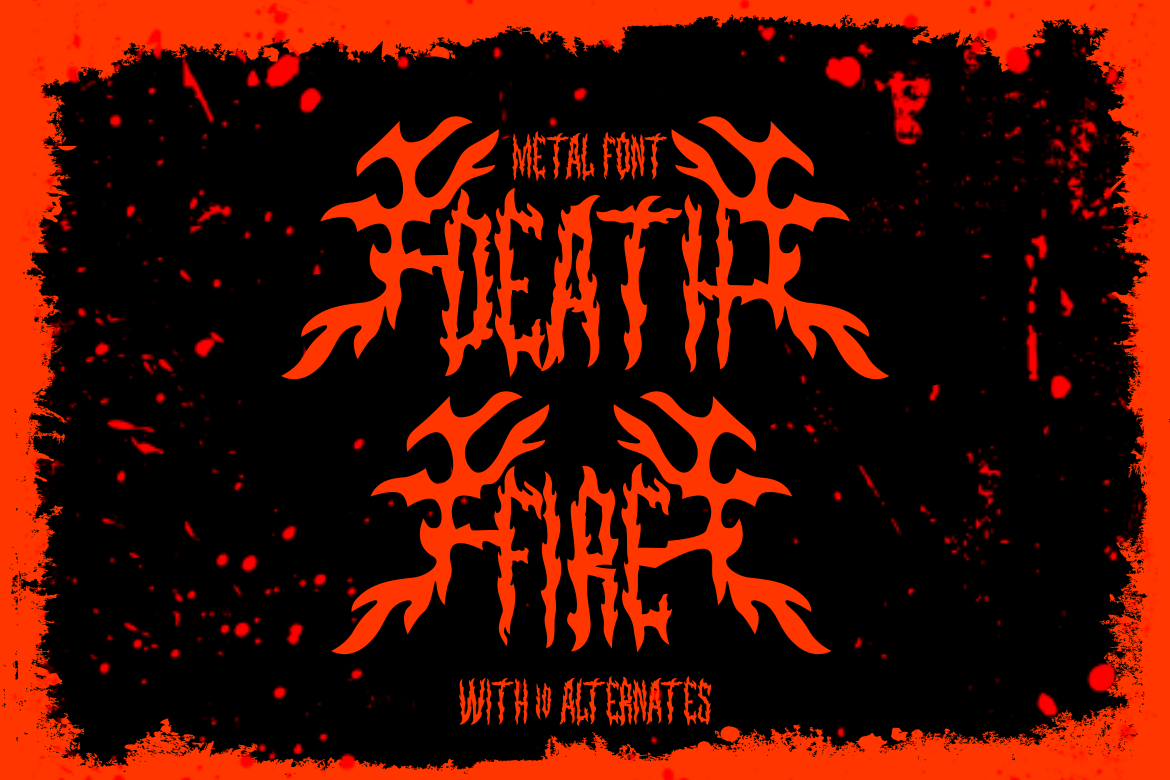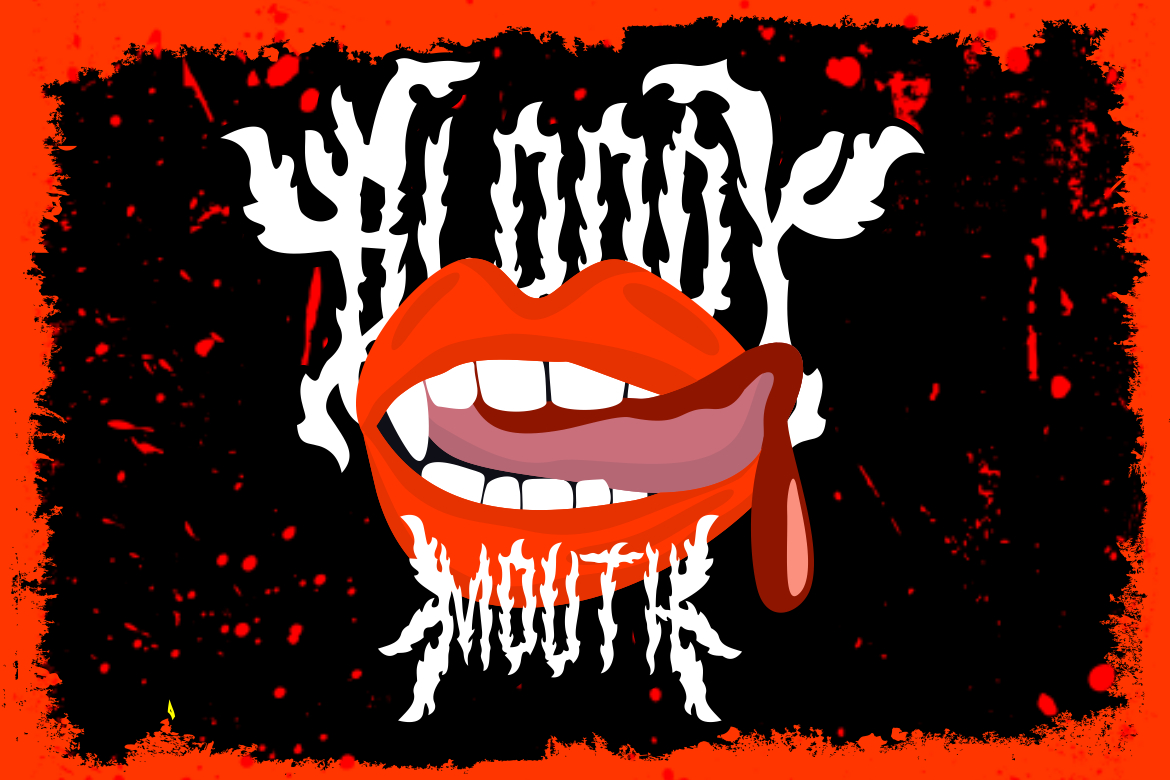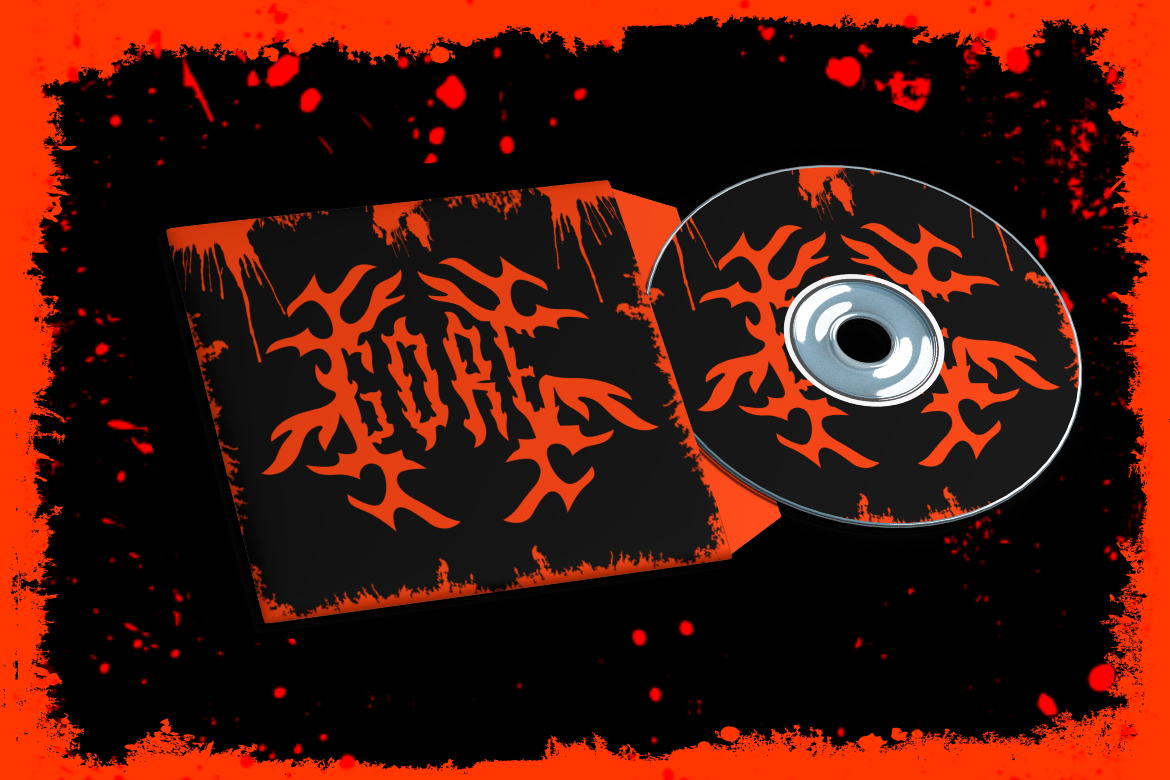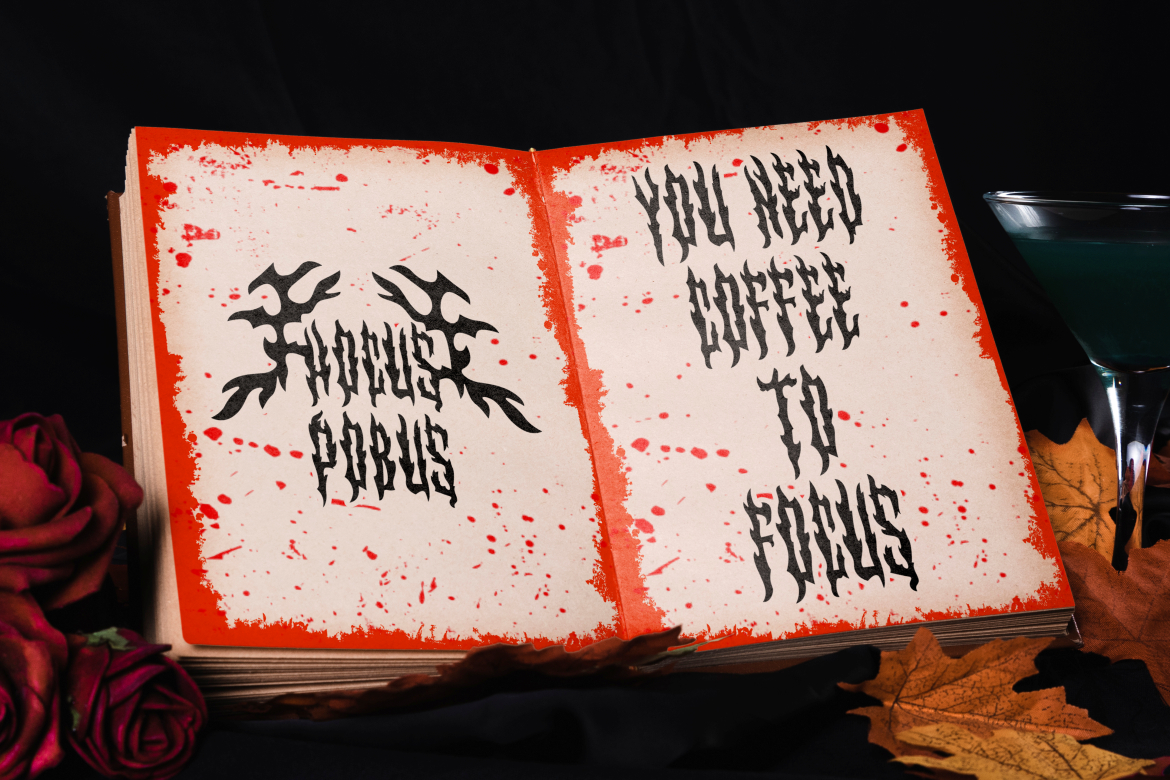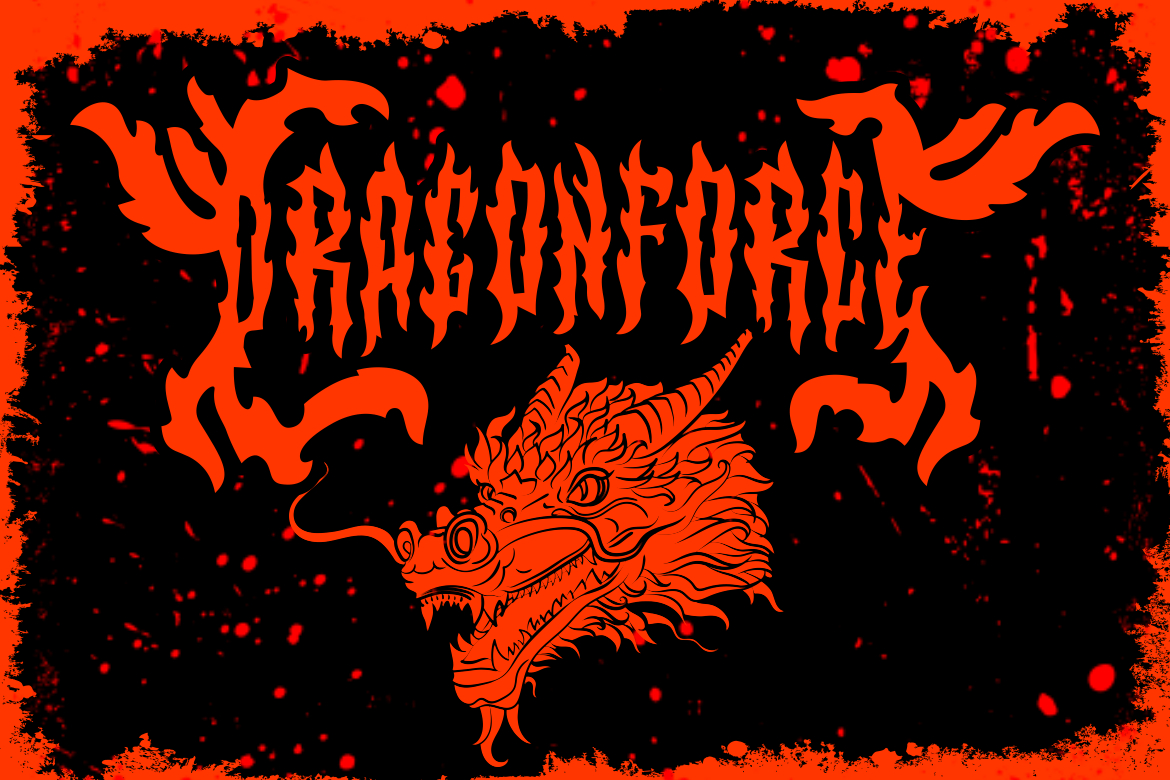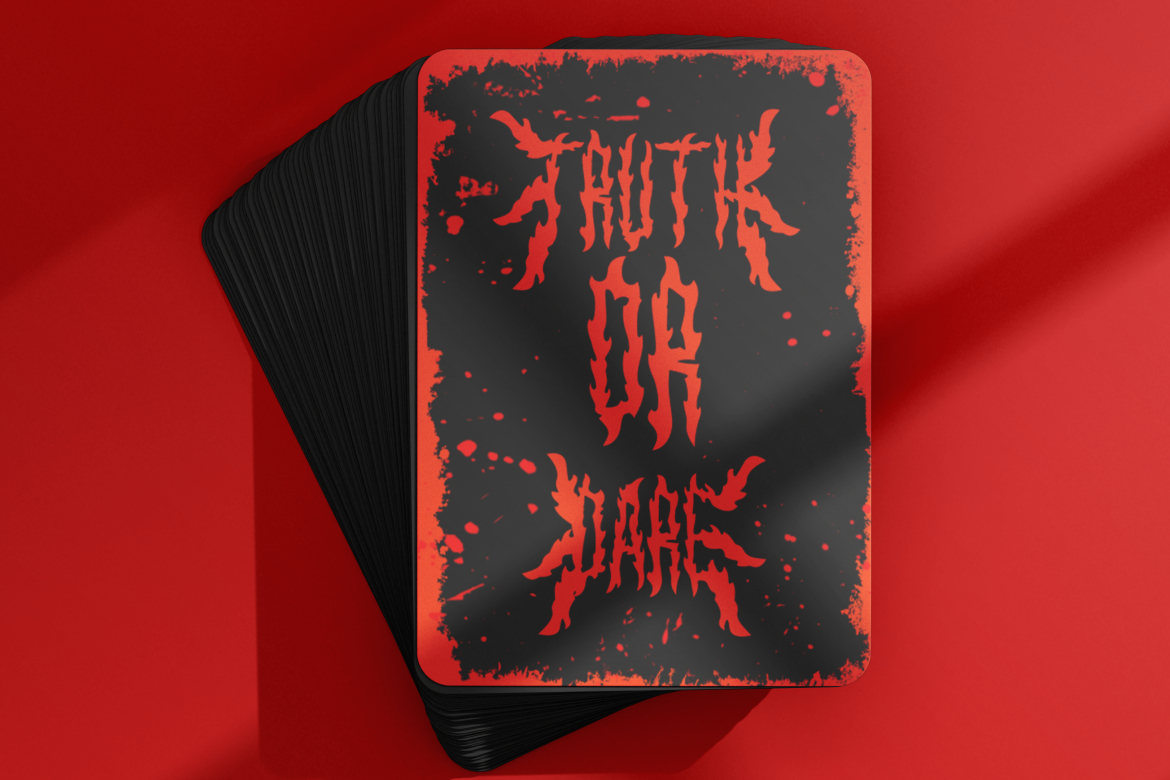
About Death Fire Font
Introducing Death Fire – Metal Font, a distinctive typeface that captures the definitive spirit of metal, black metal, and rock. Crafted to perfection, each letter exudes the unabashed might and vigor associated with the heavy metal and grunge culture. The lettering design intricately echoes ancient black letter style yet makes a loud statement of audacity – every individual character is an artistic marvel vibrating with the edgy echoes of rock and the dark enchantment of black metal.
Death Fire is more than just a font – it’s an immersive experience, a visual and auditory exploration into the mysterious realm of potent soundscapes and commanding imagery. Ideal for bold logos, out-of-the-box branding, or gig posters for the town’s latest event, it yells and commands attention. This font carves the path for bands to leave an indelible mark, while businesses can deploy its compelling aura for a striking impact. Its uniqueness lies in its versatility, being ever-dynamic and yet rooted in its thematic tendrils. Experience Death Fire – Metal Font, and let your words rock out loud!